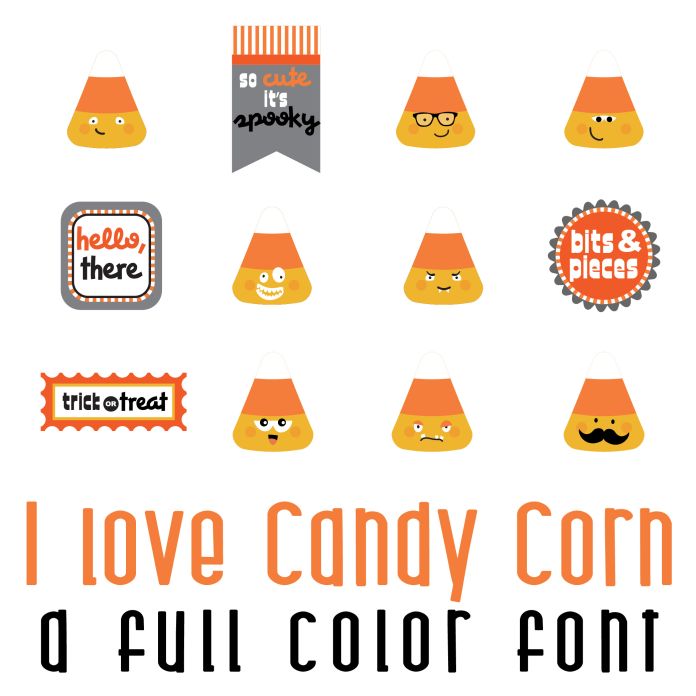
This fun full color font features 26 candy corns perfect for the holiday, gifts, cards, crafts, decor, parties, classrooms, planner stickers, scrap book pages and more!